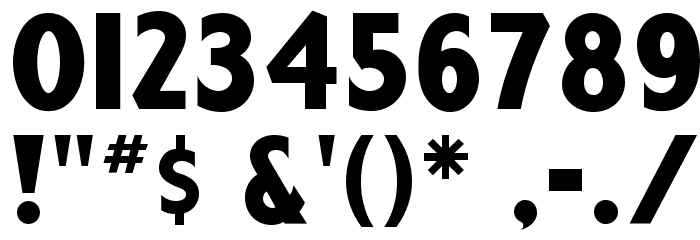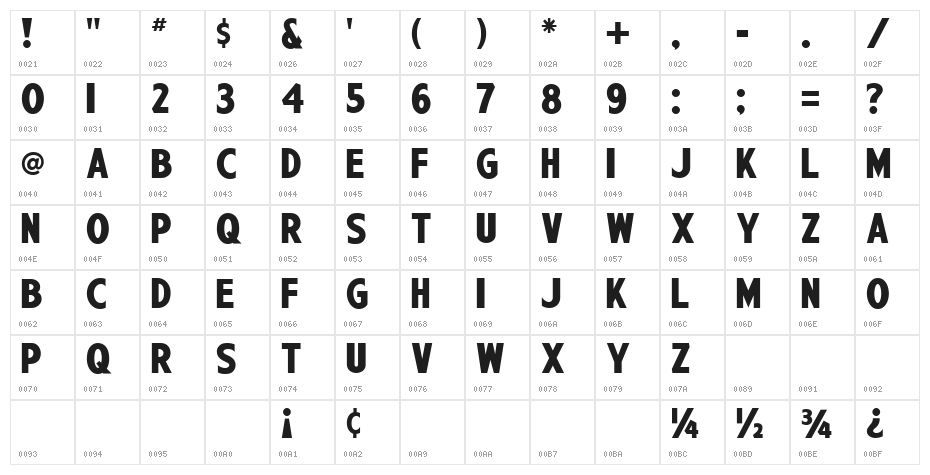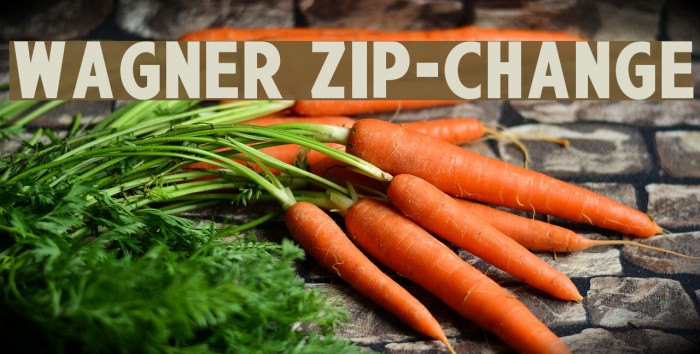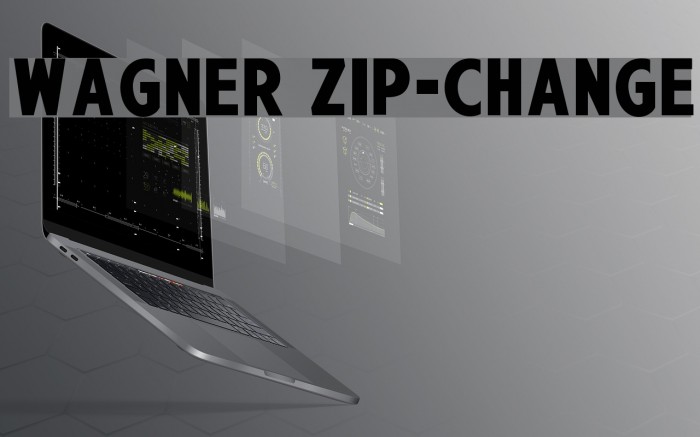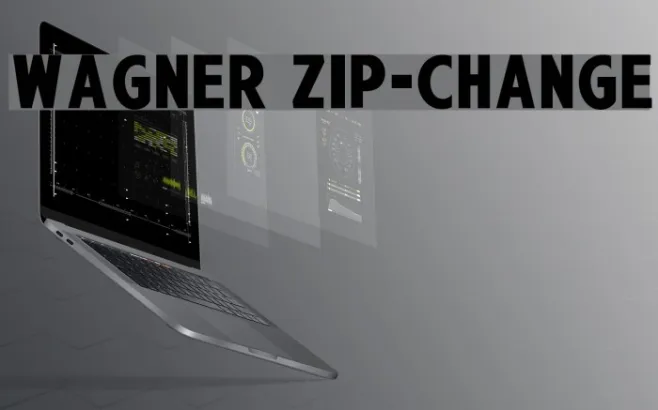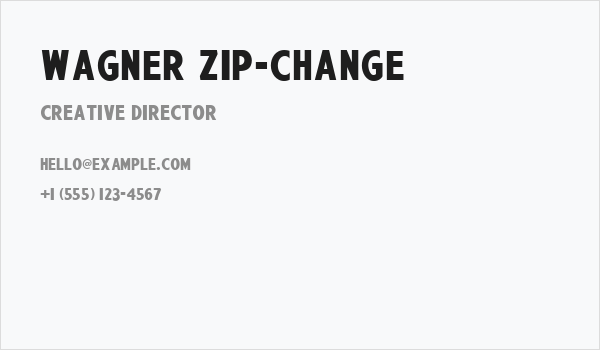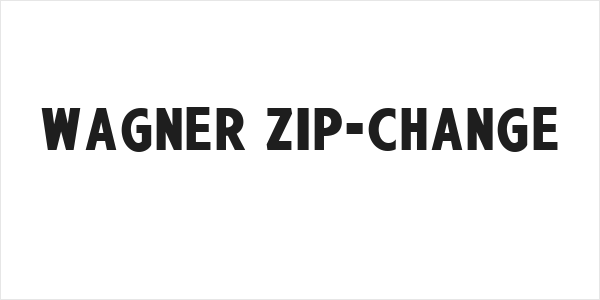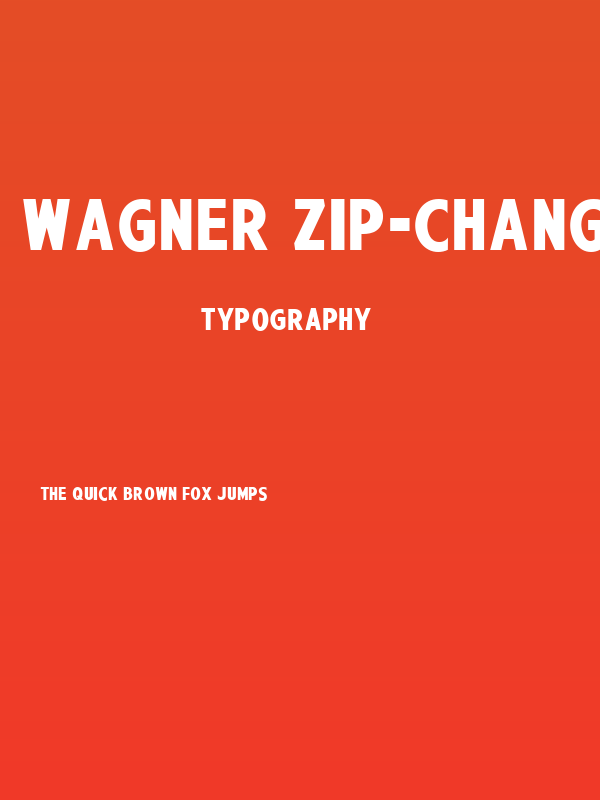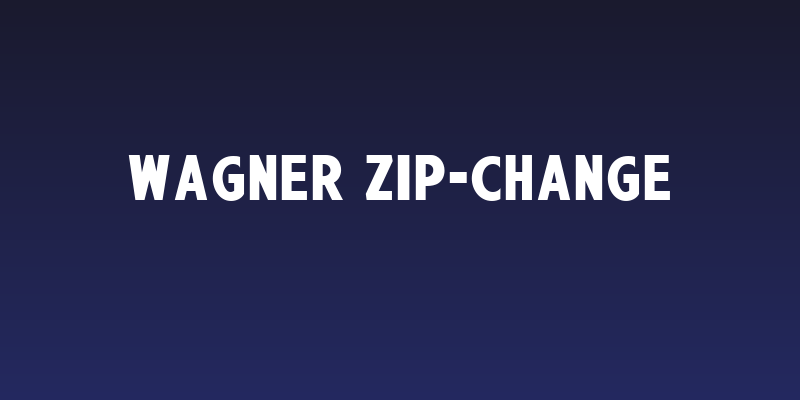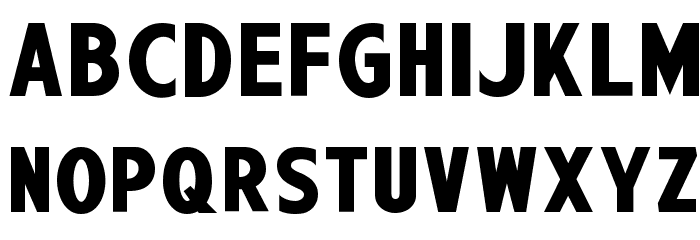
Wagner Zip-Change Font
Wagner Zip-Change Description
This font is characterized by its bold and impactful presence, featuring thick strokes and a strong geometric structure. The uppercase letters are uniform in height, creating a cohesive and balanced appearance. The lowercase letters maintain a similar weight, ensuring consistency across different text sizes. Numbers are clear and legible, with a modern touch that complements the overall design. Special characters are distinct and well-defined, enhancing the font's versatility. The font's boldness makes it suitable for attention-grabbing headlines and titles, while its clean lines ensure readability.